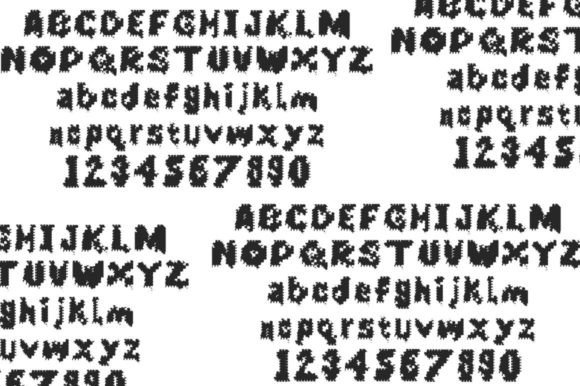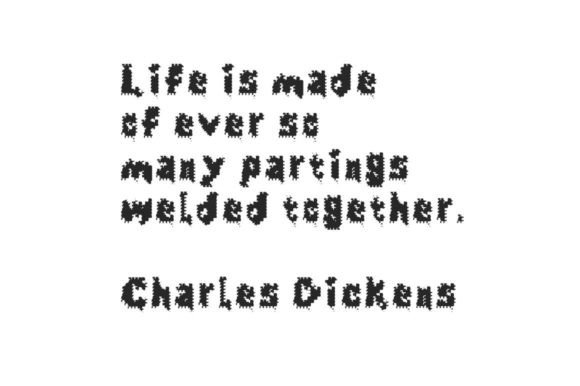
Introducing Glitch Jack Effect 2 Font: Elevate Your Designs with a Distorted and Trendy Touch
In the realm of digital design, fonts play a pivotal role in conveying messages, evoking emotions, and setting the tone for a brand or project. Among the myriad of fonts available, the Glitch Jack Effect 2 Font stands out for its unique, glitched aesthetic that adds a distorted and trendy touch to any design. As part of the Glitch Jack font family, Glitch Jack Effect 2 is one of three fonts that offer a seriously glitched character set, perfect for designers and crafters looking to push the boundaries of creativity.
The Glitch Jack Font Family: A Trio of Distorted Elegance
The Glitch Jack font family consists of three distinct fonts, each offering its own flavor of glitched elegance. Glitch Jack Effect 2, in particular, has garnered attention for its bold, distorted characters that seem to leap off the page. This font, along with its siblings, provides designers with a versatile toolkit to experiment with different styles and effects, ensuring that their projects stand out in a crowded digital landscape.
Why Choose Glitch Jack Effect 2 Font?
So, why should designers and crafters opt for the Glitch Jack Effect 2 Font? Here are a few compelling reasons:
- Unique Aesthetic: The glitched characters of Glitch Jack Effect 2 offer a unique aesthetic that can add a layer of complexity and interest to designs. Whether you’re working on a branding project, a website, or a digital artwork, this font can help you achieve a distinctive look.
- Versatility: Despite its niche appeal, Glitch Jack Effect 2 is surprisingly versatile. It can be used in a variety of contexts, from futuristic tech projects to more artistic endeavors. The key is to experiment and find the right balance for your design.
- Trendiness: The glitch aesthetic is not just a fleeting trend; it’s a design choice that communicates a sense of modernity and edginess. By incorporating Glitch Jack Effect 2 into your designs, you’re instantly giving them a trendy, contemporary feel.
How to Use Glitch Jack Effect 2 Font in Your Designs
Incorporating Glitch Jack Effect 2 into your design projects is straightforward. Here are some tips to get you started:
- Pair with Solids: For maximum impact, consider pairing Glitch Jack Effect 2 with solid, clean fonts. This contrast can help highlight the glitched aesthetic while maintaining readability.
- Experiment with Sizes: Don’t be afraid to play with different sizes. Using Glitch Jack Effect 2 in larger sizes can create a bold statement, while smaller sizes can add subtle texture to your designs.
- Color Matters: The glitch effect can be further emphasized with the right color choices. Consider using bright, contrasting colors to enhance the distorted look.
The Glitch Jack Effect 2 Font offers a fresh, innovative way to add a distorted and trendy touch to your designs. As part of the Glitch Jack font family, it provides designers and crafters with a powerful tool to experiment with glitch aesthetics. Whether you’re looking to make a bold statement or simply add some texture to your projects, Glitch Jack Effect 2 is worth exploring. So, why not give it a try and see how it can elevate your designs?
In the ever-evolving world of digital design, staying ahead of the curve is key. With fonts like Glitch Jack Effect 2, designers have the opportunity to push boundaries, explore new aesthetics, and create truly memorable projects. So, embrace the glitch, and let Glitch Jack Effect 2 guide you into a world of distorted elegance and creative possibility.